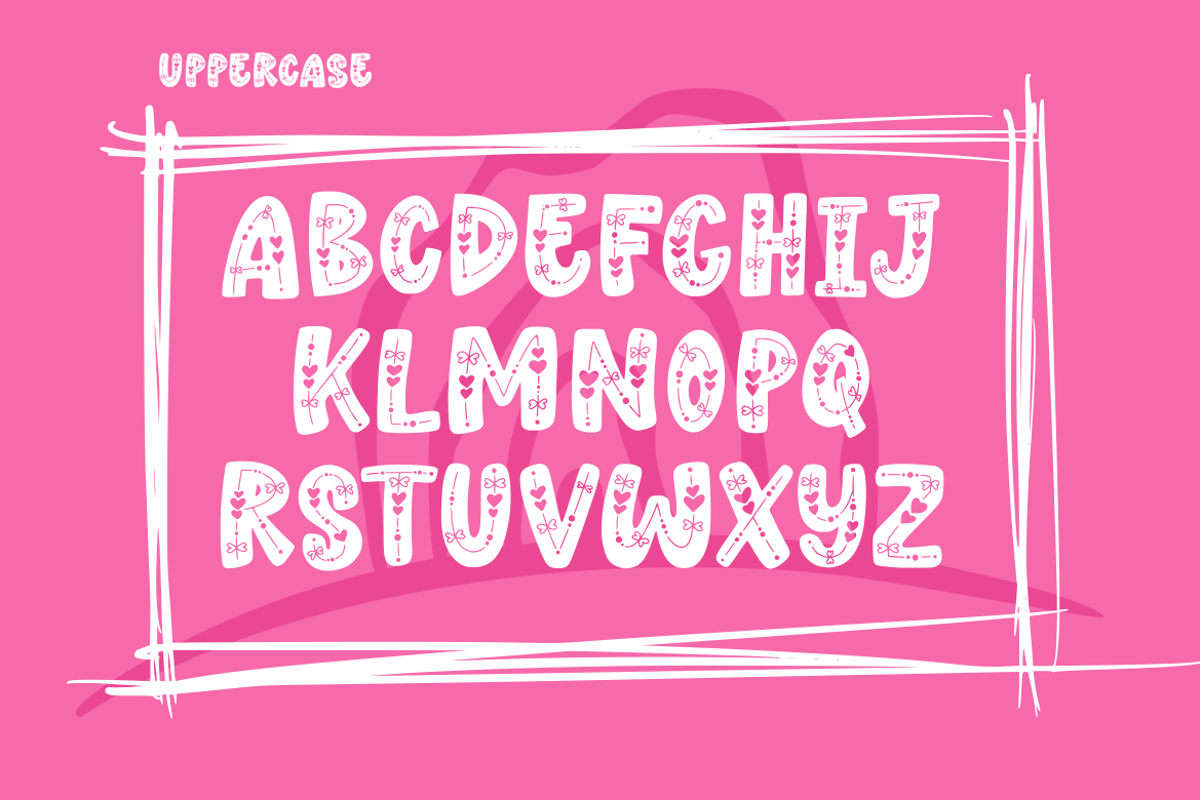
Candy Kisses Font . Every font is free to download! candy kisses font download is available free from fontget. candy kisses à € by rochart studio. Click to find the best 85 free fonts in the candy style. It has a playful feel that will turn any. free download of candy kisses font. Candy kisses by statica productions. Click now to create a custom image with your own words that you can download. candy kisses valentine font is a casual and thick lettered decorative font. Candy kisses is a holiday type font that can be used on any device such as pc, mac, linux,. 19,625 downloads (6 yesterday) 1 comment free for personal use. 143,808 downloads free for personal use. looking for candy fonts?
Candy Kisses Font
Candy Kisses Font Click now to create a custom image with your own words that you can download. free download of candy kisses font. Candy kisses is a holiday type font that can be used on any device such as pc, mac, linux,. Click now to create a custom image with your own words that you can download. looking for candy fonts? Every font is free to download! candy kisses à € by rochart studio. Click to find the best 85 free fonts in the candy style. It has a playful feel that will turn any. 143,808 downloads free for personal use. candy kisses valentine font is a casual and thick lettered decorative font. Candy kisses by statica productions. candy kisses font download is available free from fontget. 19,625 downloads (6 yesterday) 1 comment free for personal use.
Candy Kisses Free Font Download MaisFontes Candy Kisses Font Every font is free to download! It has a playful feel that will turn any. free download of candy kisses font. 19,625 downloads (6 yesterday) 1 comment free for personal use. candy kisses valentine font is a casual and thick lettered decorative font. looking for candy fonts? candy kisses à € by rochart studio. Click to. Candy Kisses Font.
Candy Kisses Valentine Font By Rochart TheHungryJPEG Candy Kisses Font 19,625 downloads (6 yesterday) 1 comment free for personal use. candy kisses valentine font is a casual and thick lettered decorative font. Click to find the best 85 free fonts in the candy style. candy kisses font download is available free from fontget. It has a playful feel that will turn any. Click now to create a custom. Candy Kisses Font.
Candy Kisses Font free download of candy kisses font. candy kisses valentine font is a casual and thick lettered decorative font. Candy kisses by statica productions. It has a playful feel that will turn any. 19,625 downloads (6 yesterday) 1 comment free for personal use. Click to find the best 85 free fonts in the candy style. candy kisses font. Candy Kisses Font.
Candy Kisses font by Statica Productions FontRiver Candy Kisses Font Candy kisses is a holiday type font that can be used on any device such as pc, mac, linux,. 19,625 downloads (6 yesterday) 1 comment free for personal use. It has a playful feel that will turn any. free download of candy kisses font. Candy kisses by statica productions. Click now to create a custom image with your own. Candy Kisses Font.
SVG Sweethearts Candy Font Etsy Candy Kisses Font candy kisses valentine font is a casual and thick lettered decorative font. Candy kisses is a holiday type font that can be used on any device such as pc, mac, linux,. candy kisses font download is available free from fontget. candy kisses à € by rochart studio. Click now to create a custom image with your own. Candy Kisses Font.
Candy Kisses Font Click to find the best 85 free fonts in the candy style. candy kisses font download is available free from fontget. It has a playful feel that will turn any. looking for candy fonts? Candy kisses is a holiday type font that can be used on any device such as pc, mac, linux,. Click now to create a. Candy Kisses Font.
Candy Kisses Valentine Font By Rochart TheHungryJPEG Candy Kisses Font Click now to create a custom image with your own words that you can download. Click to find the best 85 free fonts in the candy style. candy kisses valentine font is a casual and thick lettered decorative font. looking for candy fonts? 143,808 downloads free for personal use. 19,625 downloads (6 yesterday) 1 comment free for personal. Candy Kisses Font.